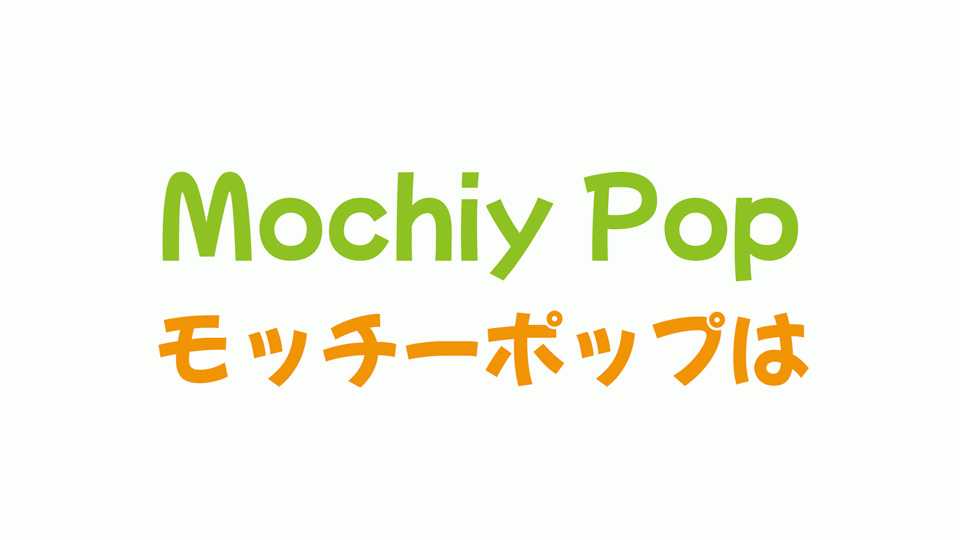
Download Mochiy Pop font, a casual typeface created based on characters written by girls in their 20s in Japan. Mochiy Pop is a cute display font, you can use it widely, such as for manga, magazines, movies, and signs.